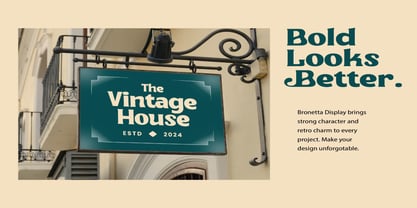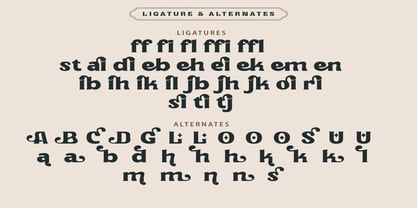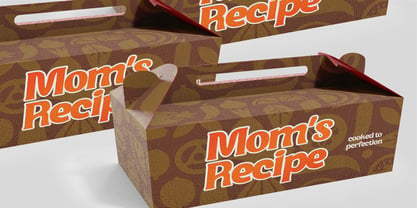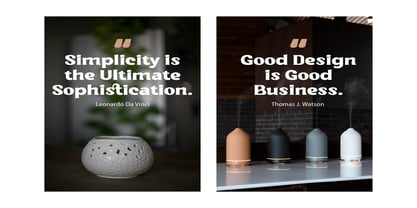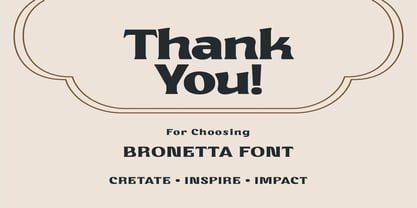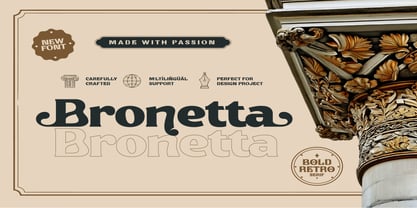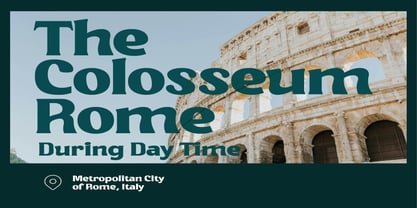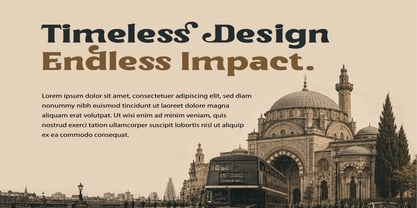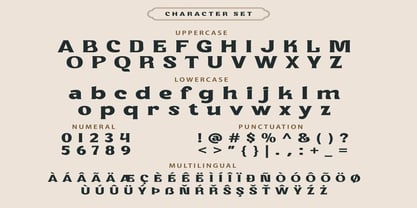
Bronetta
by Sototive
The Bronetta Font Family was designed by Sofyananto and published by Sototive. Bronetta contains 1 styles. More about this family
Bronetta Display is a bold retro serif typeface inspired by vintage European signage, classic editorial typography, and timeless ornamental aesthetics. Carefully crafted with strong personality and elegant curves, this font is perfect for branding, posters, packaging, logos, headlines, and premium design projects.
Features:
- Uppercase & Lowercase
- Numerals & Punctuation
- Multilingual Support
- Stylistic Retro Look
- Carefully Crafted Letterforms